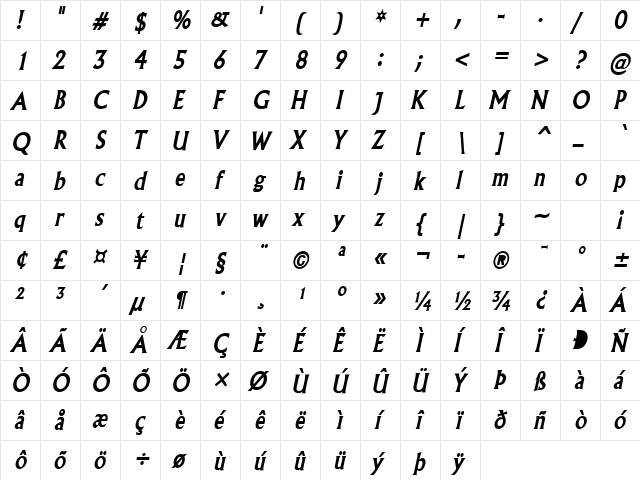
Flair-Condensed Bold Italic Font Preview
Design Context for Flair-Condensed Typeface
Flair-Condensed offers clean, dependable letterforms without strong stylistic allegiance, making it a practical choice for designers who need flexibility. The dynamic lean of this cut emphasises speed and emphasis in any layout. The heavy weight commands attention and anchors typographic hierarchies. Its narrow stance lets it pack a punch even in space-constrained designs.
Pro Tip: Use Flair-Condensed for emphasis, pull quotes, and subheadings where its slanted energy can add rhythm to the layout.